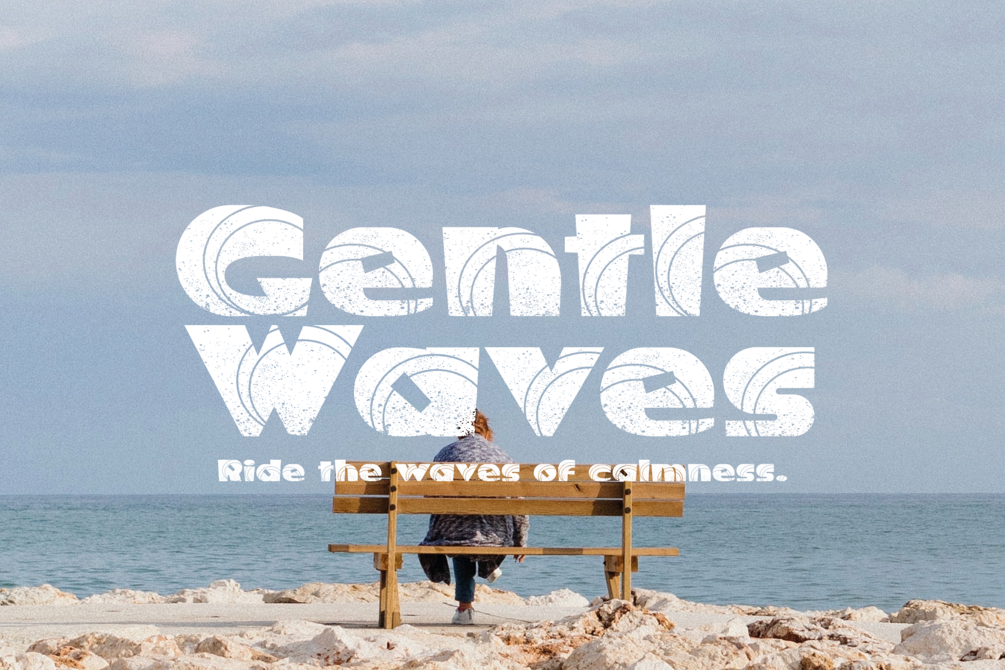
Jukebox Jive - Playful Typeface
Step back in time and groove to the rhythm of Jukebox Jive, the font that brings the playful spirit of the past right to your fingertips!
Prepare to be transported to an era of neon lights, jukeboxes, and swing dances with this quirky and whimsical retro typeface. Jukebox Jive is like a time capsule of nostalgic charm, with each letter dancing to its own beat. Its curvaceous and lively strokes effortlessly capture the essence of vintage signage and classic record covers.
Whether you're designing a retro-inspired party invitation, a funky logo, or adding a touch of pizzazz to your social media graphics, Jukebox Jive guarantees to jazz up your designs and make them pop. Don't settle for ordinary fonts when you can embrace the vibrant nostalgia of Jukebox Jive and let your creativity boogie its way to the top!